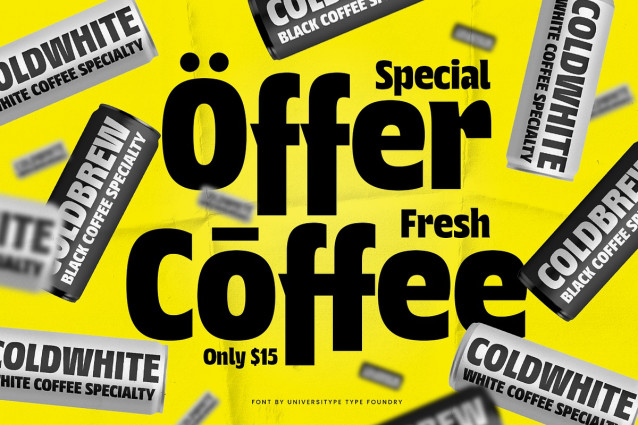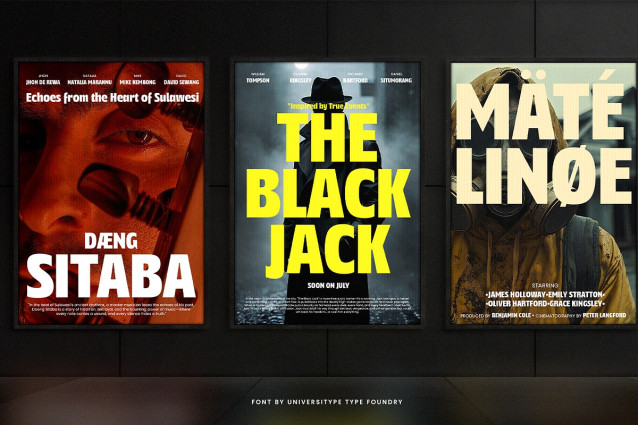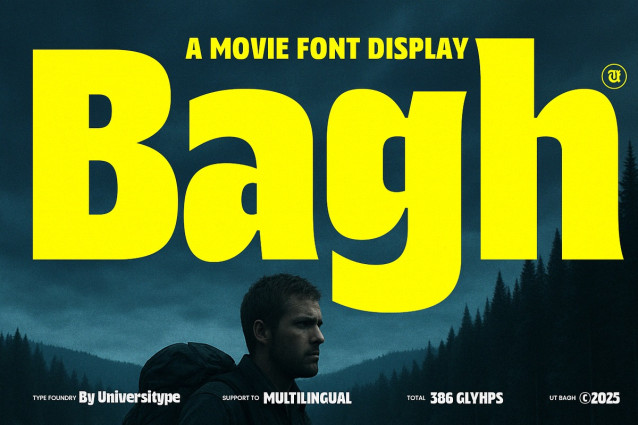
UT Bagh Font
UT Bagh Font is a neo-grotesk sans-serif built with the big screen in mind. It’s clean, modern, and confident, crafted to be just as striking on a four-story movie poster as it is in the rolling end credits of your favorite film. With its wide apertures, generous counters, and steady rhythm, UT Bagh brings clarity and character to any project. Think of it as your typographic IMAX lens: bold, versatile, and always in focus.